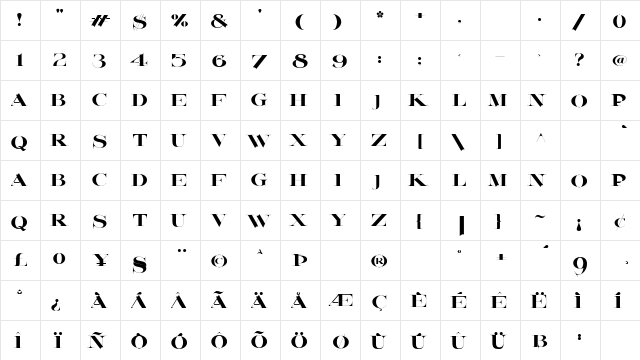
Lafitte Regular
Design Context for Lafitte Typeface
Lafitte offers clean, dependable letterforms without strong stylistic allegiance, making it a practical choice for designers who need flexibility.